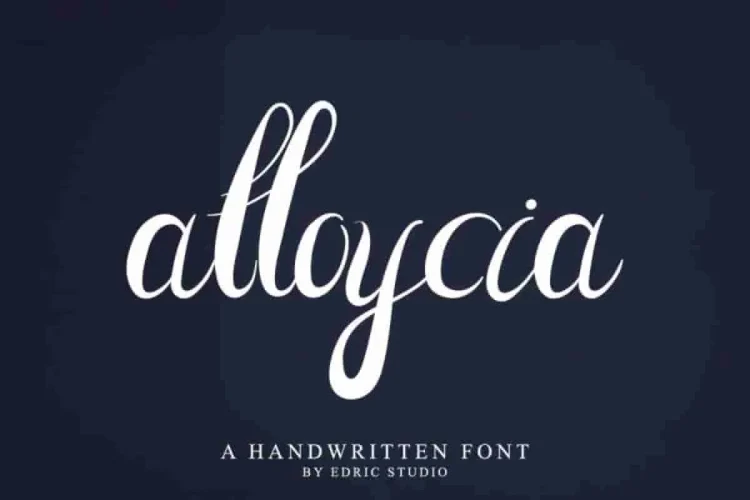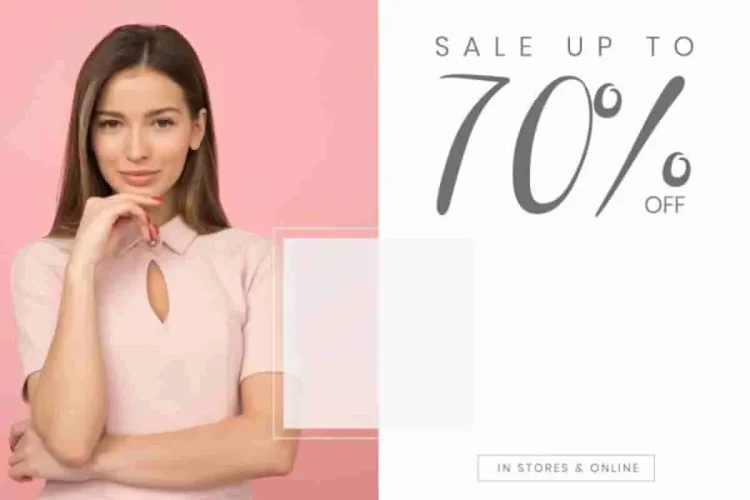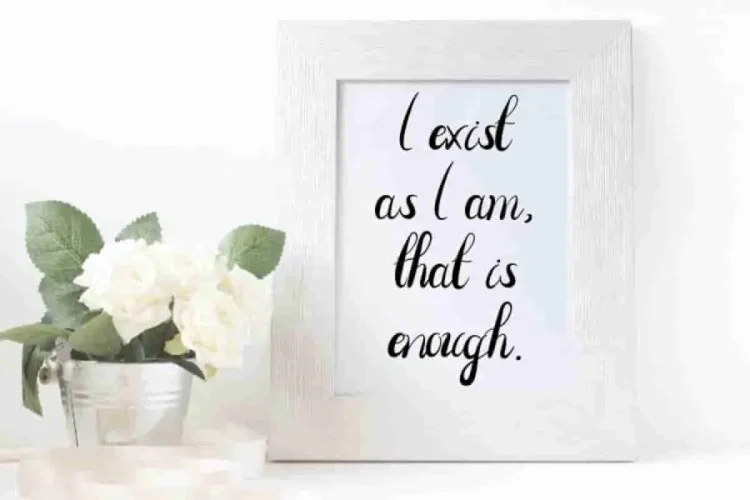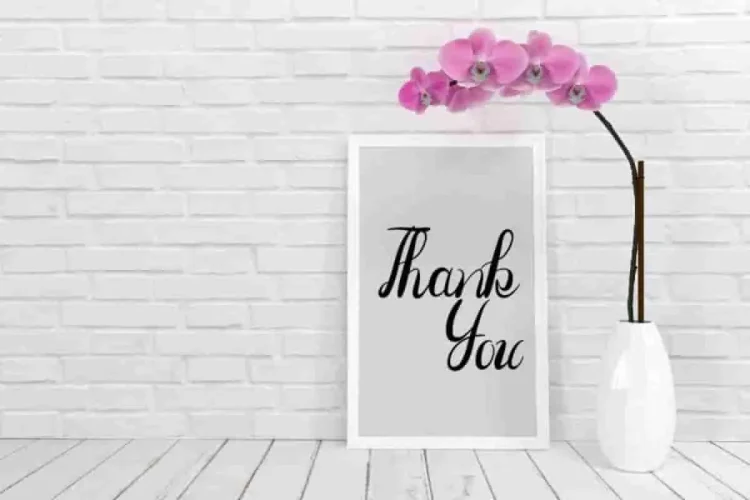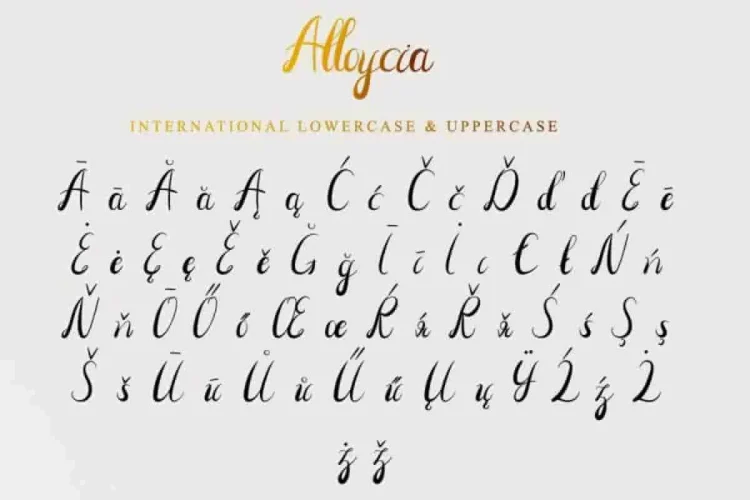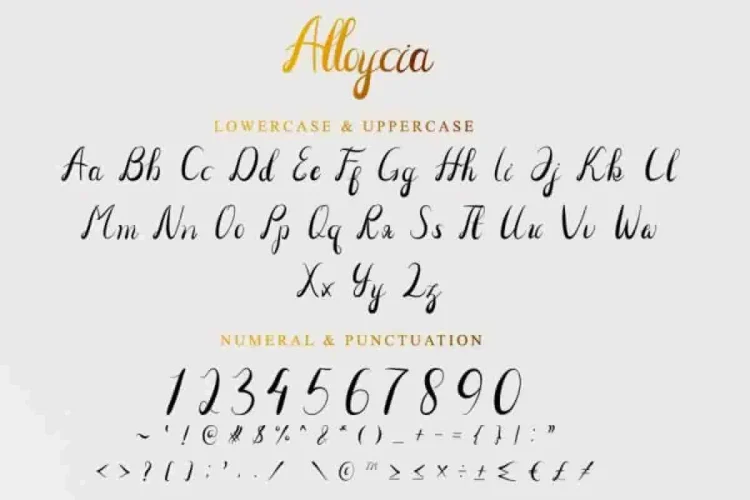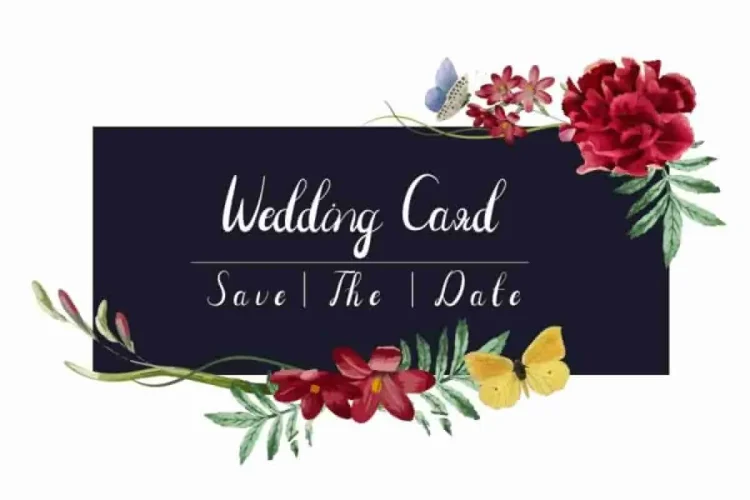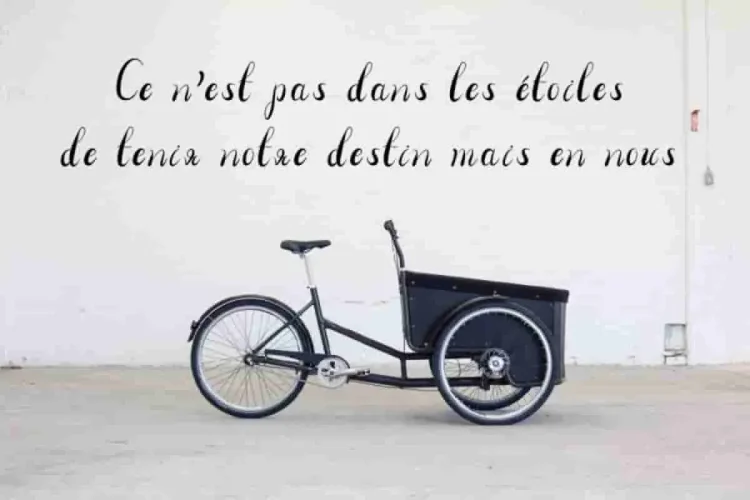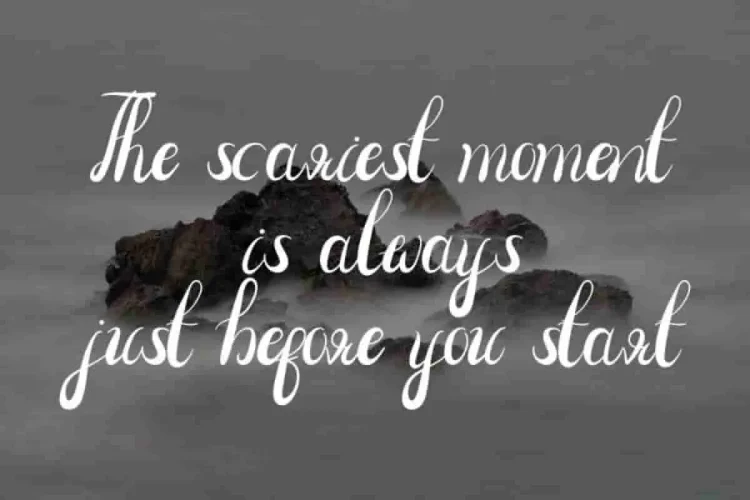
Alloycia Calligraphy Script Font
Now, meet the newest font from our talented artist : Alloycia.
Specifically, this is a Calligraphy font, handcrafted in our studio here in Indonesia. Behind the beauty, the artists/designers of this beautiful typeface is Widiyanti and Sarah Suci.
In fact, Alloycia Calligraphy Font is an exclusive calligraphy script typeface with brush style. Moreover, this font has a stunning characters set, perfectly managed with well spaced and kerning. As a result, the theme style of this font will elegant,  vintage, stylish, sophisticated and classic brush calligraphic style. Therefore, you won’t find a font like Alloycia Calligraphy Font anywhere else.
Furthermore, every stroke is handcrafted to capture the natural beauty of brush calligraphy while maintaining perfect balance, spacing, and kerning. As you explore, You’ll see graceful curves, fluid connections, and a timeless charm that elevates any design.
Alloycia Calligraphy Font will be great for any projects including : branding, logo, stationery, business card, signage, flyer, brochure etc. Consequently, almost all industries will match this typeface : wedding, events, real estate, architect, law firm, florist, gardening, makeup artist, travel, hotel, musician etc